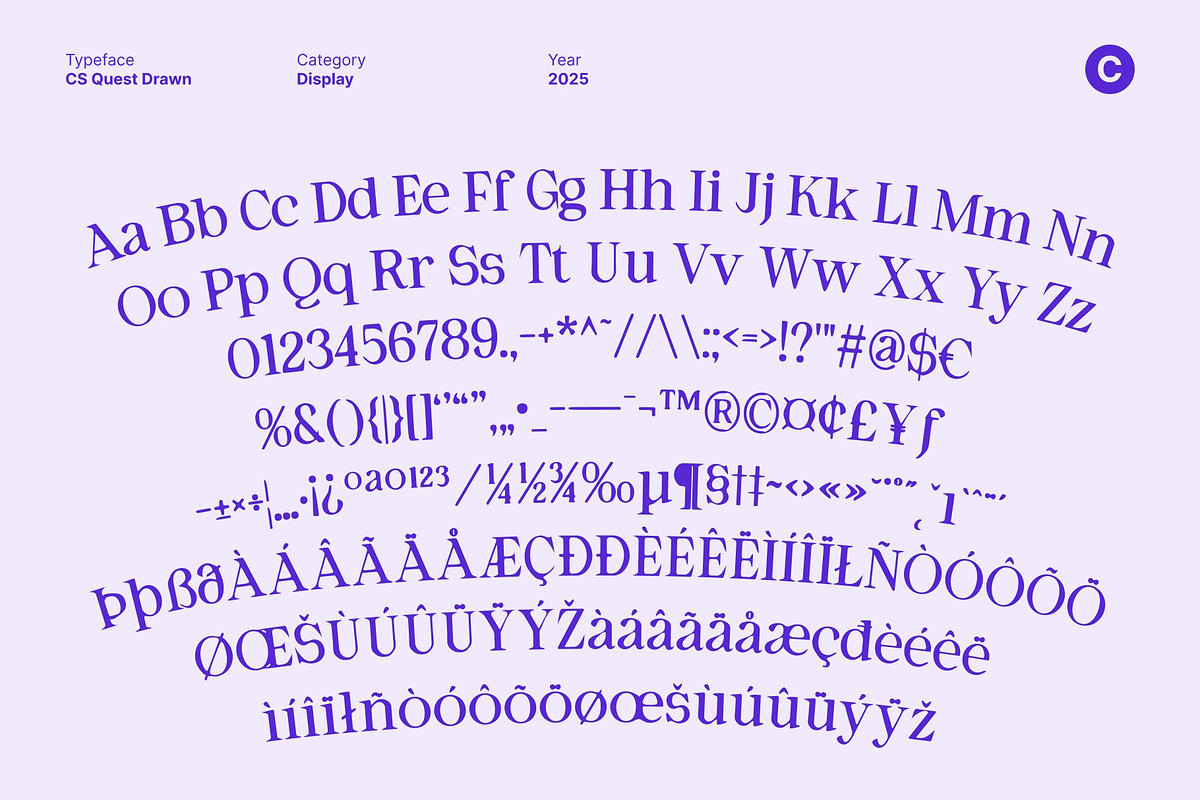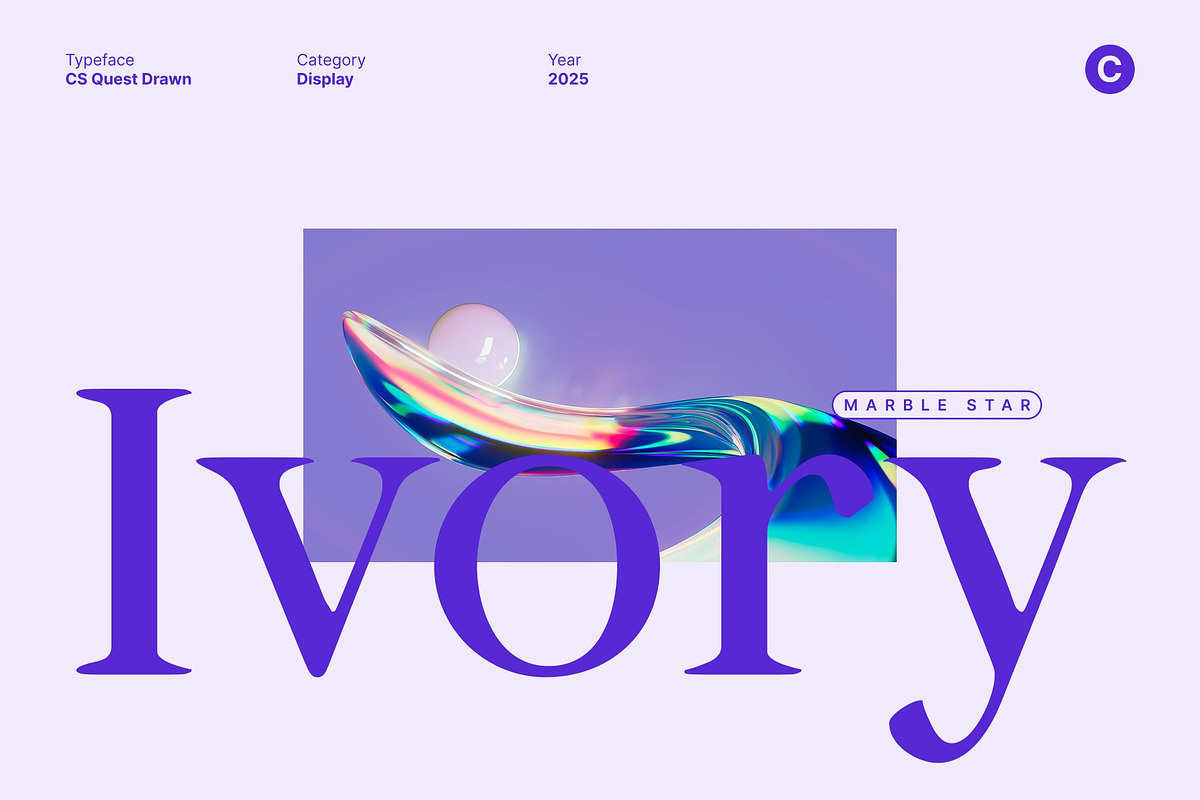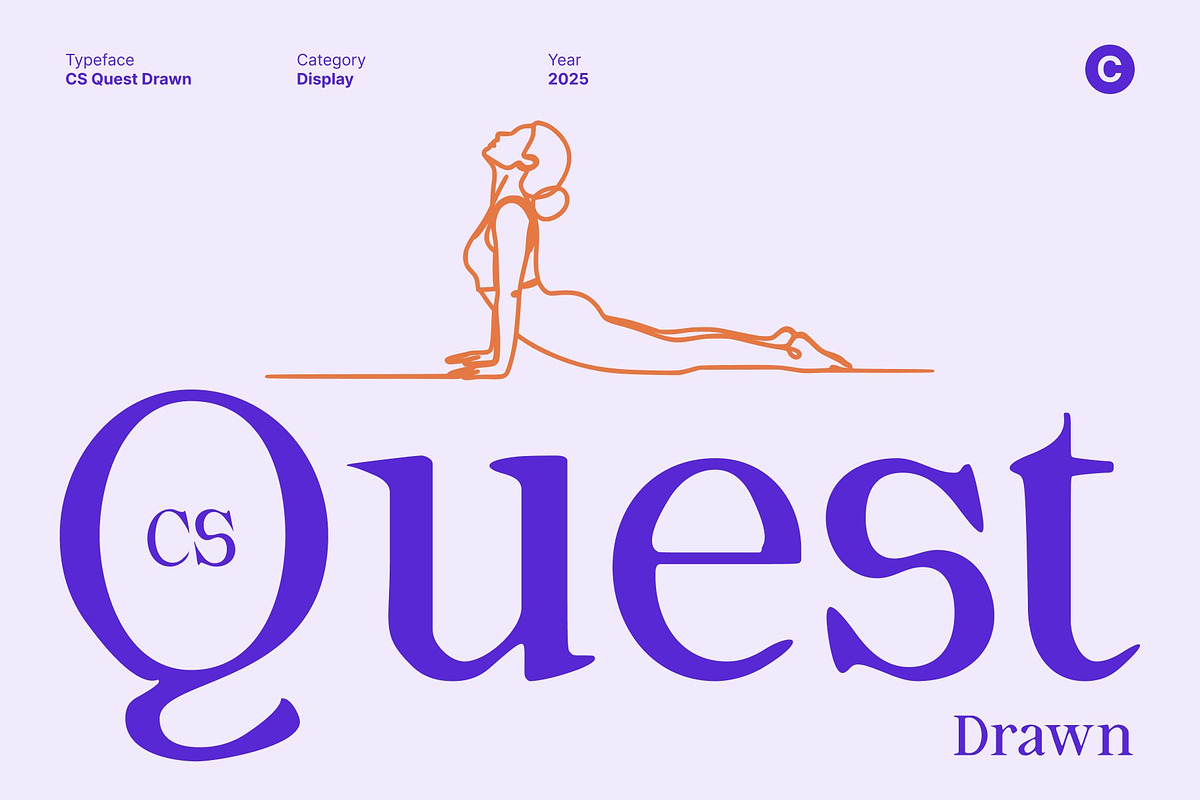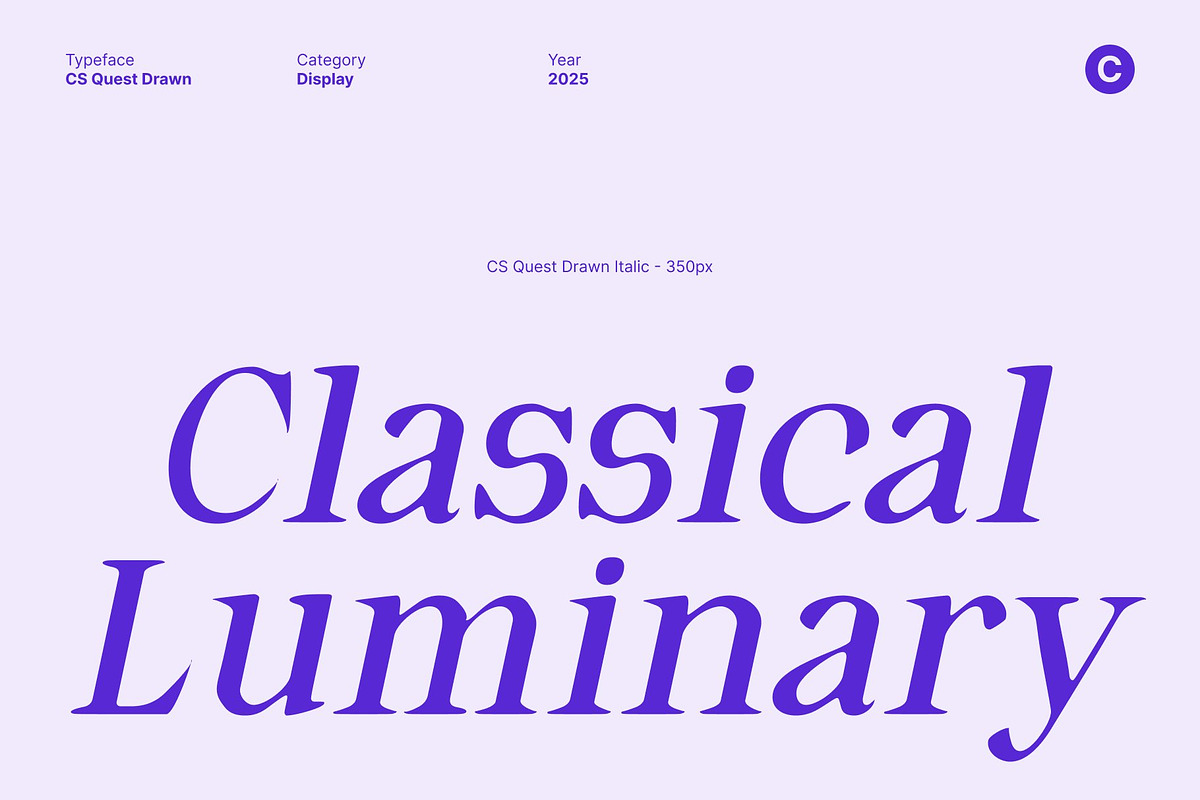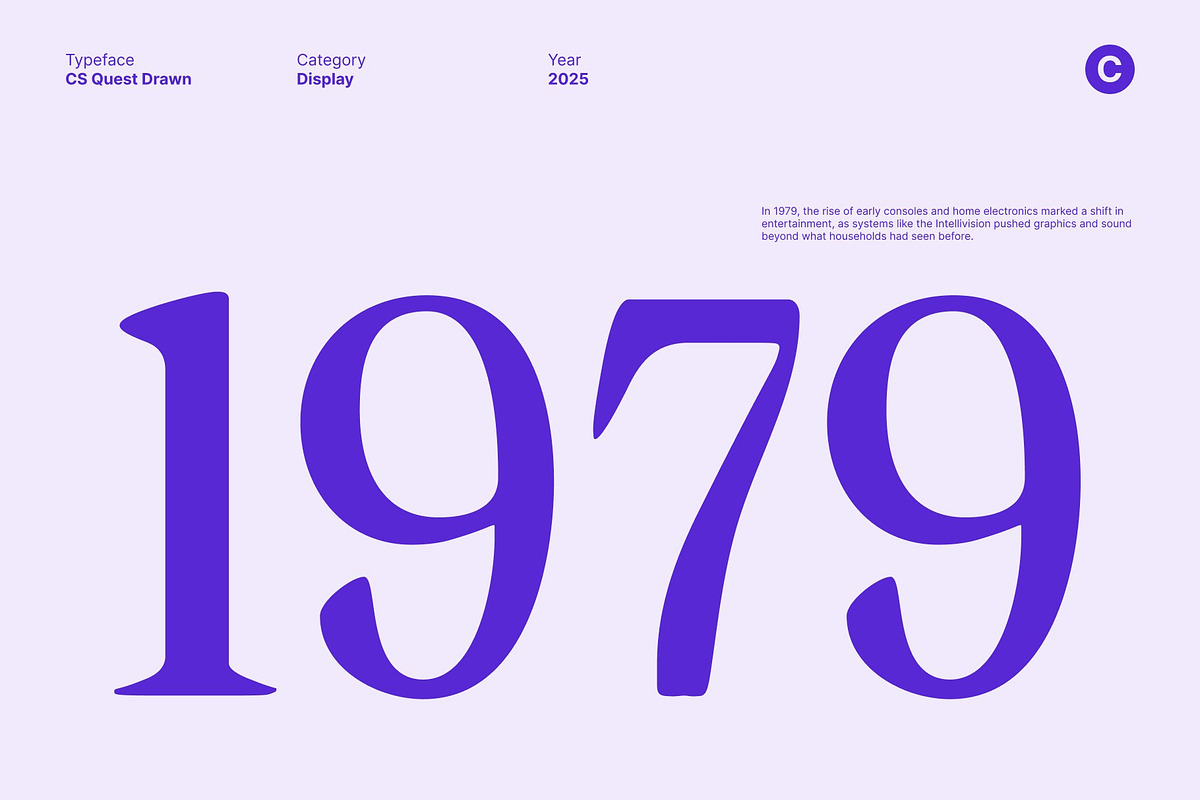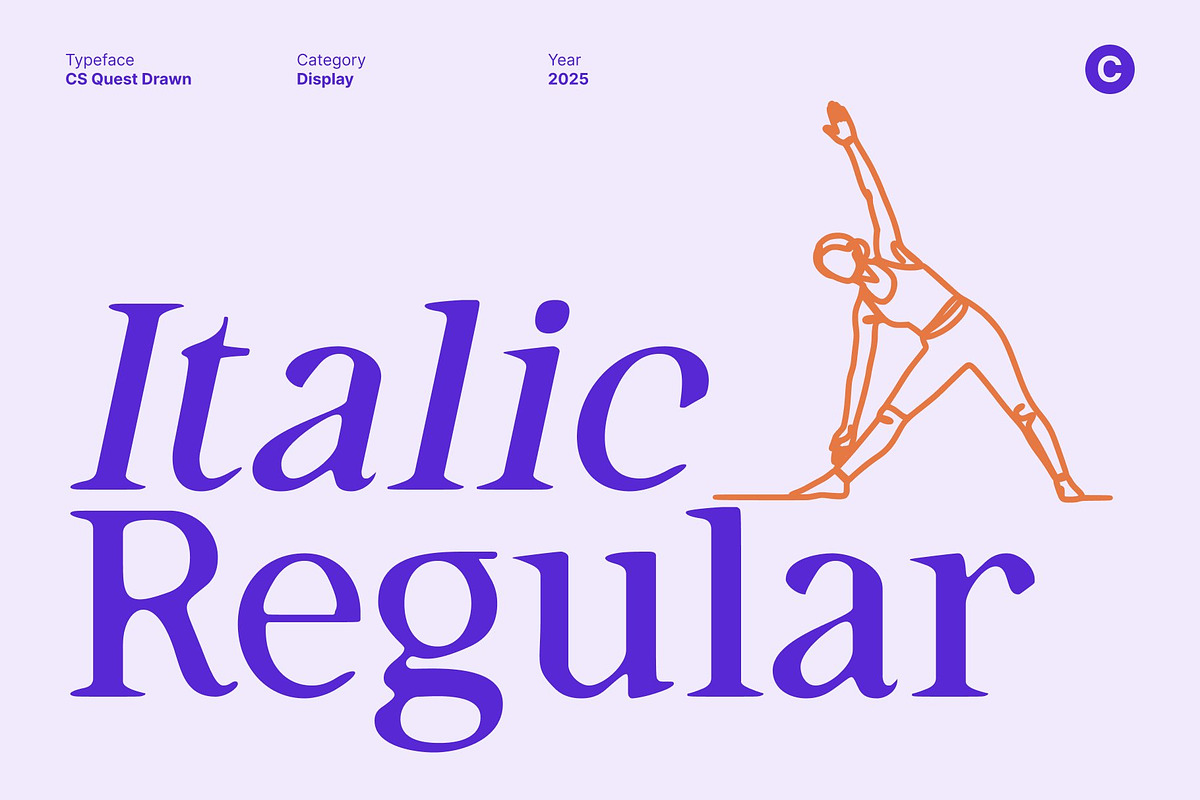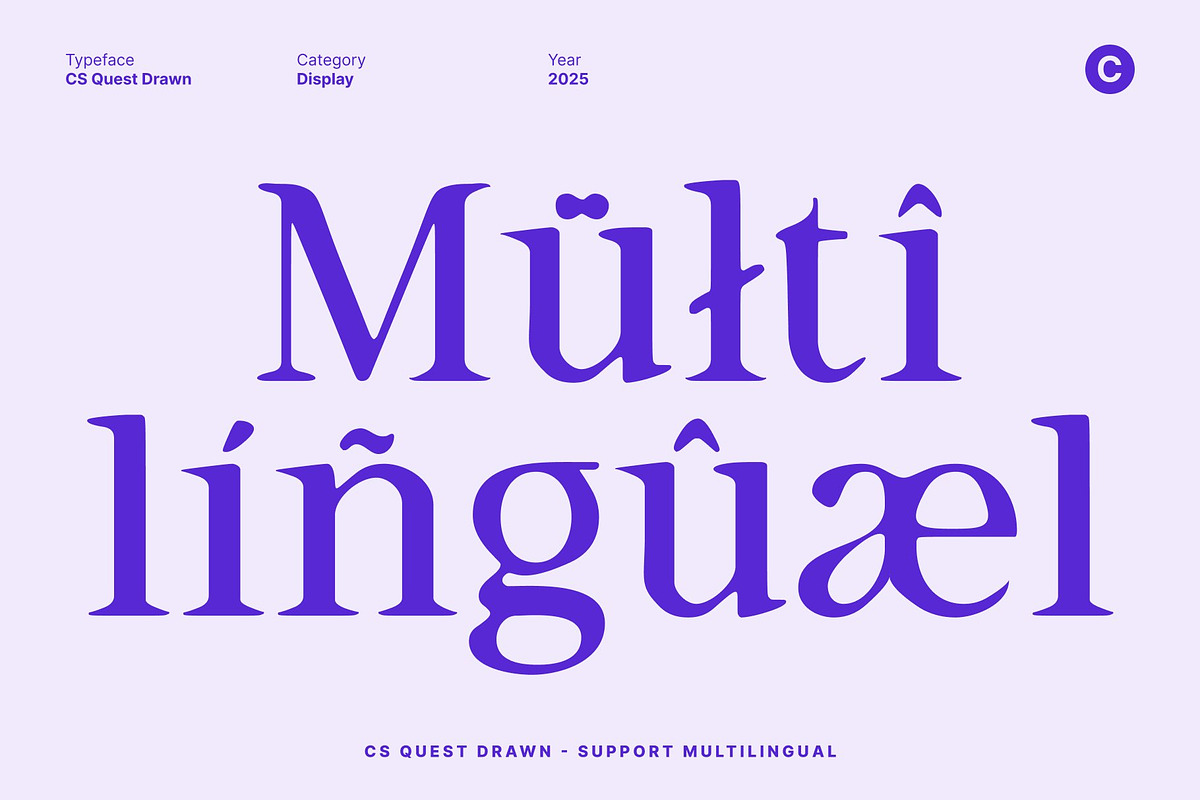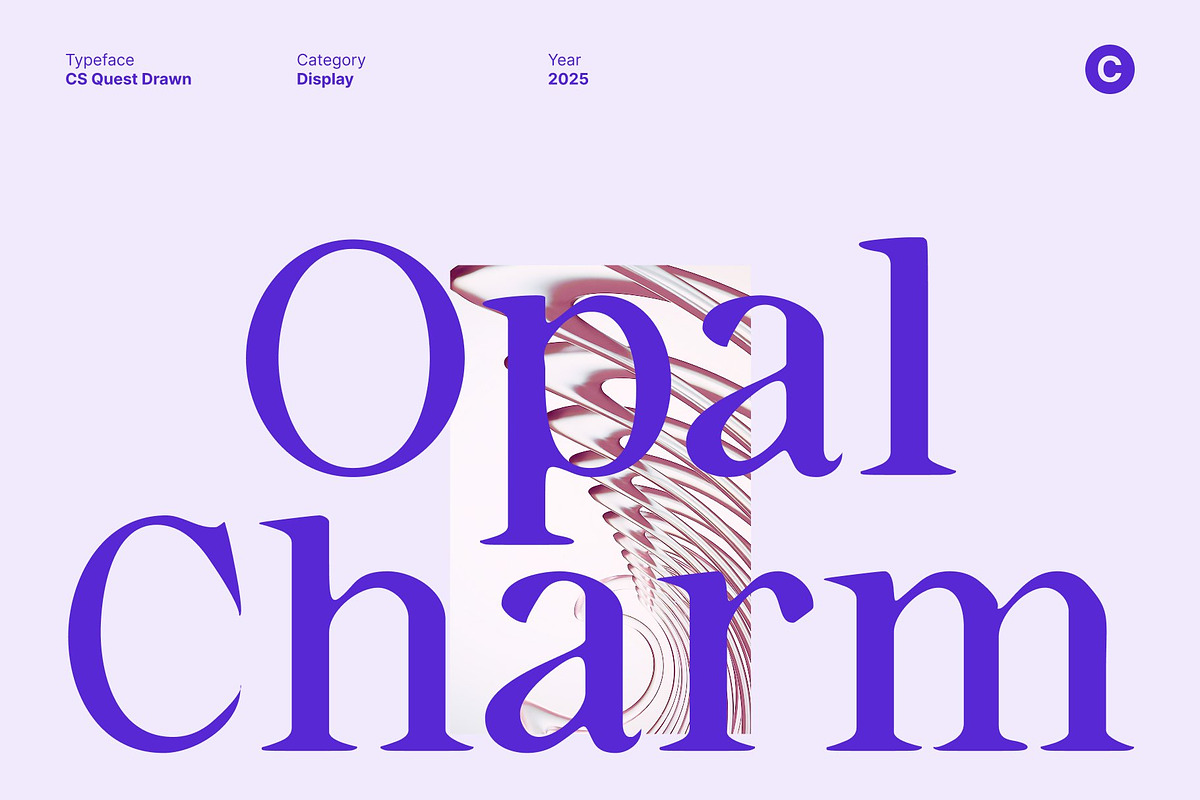
CS Quest Drawn
CS Quest Drawn – Classic Elegant Serif with Artistic Drawn Texture
Classic Letterforms with Refined Elegance This classic serif font combines timeless elegance with carefully balanced shapes, delivering a soft and sophisticated appearance. Its refined letterforms evoke a sense of calm and beauty, making it ideal for designs that aim to appear stylish yet approachable.
Drawn Effect for Artistic and Relaxed Expression The drawn effect introduces a handcrafted texture to each character, enhancing the font’s artistic quality. This subtle, organic detailing softens the classic serif forms, creating a relaxed and inviting feel while maintaining an elegant aesthetic.
Perfect for Fun, Calm, and Beautiful Designs Suitable for editorial layouts, lifestyle branding, posters, packaging, or creative projects, this font adds personality and charm. Its combination of classic elegance and drawn artistry ensures designs feel unique, expressive, and visually engaging.
Sophisticated, Artistic, and Visually Inviting By blending timeless serif shapes with a handcrafted drawn texture, this font delivers a typeface that is both elegant and artistic. It’s perfect for designers seeking a classic yet relaxed style that communicates beauty, charm, and personality.